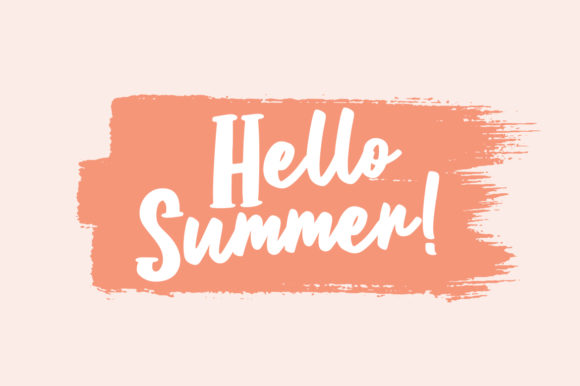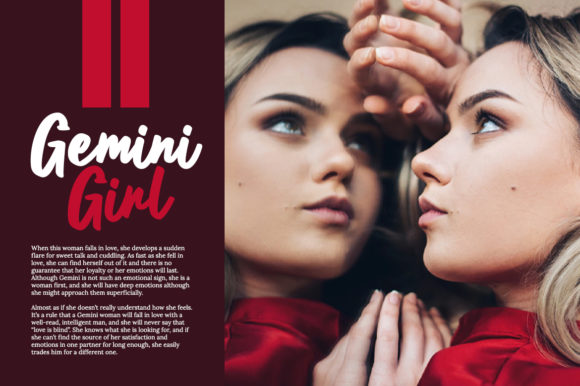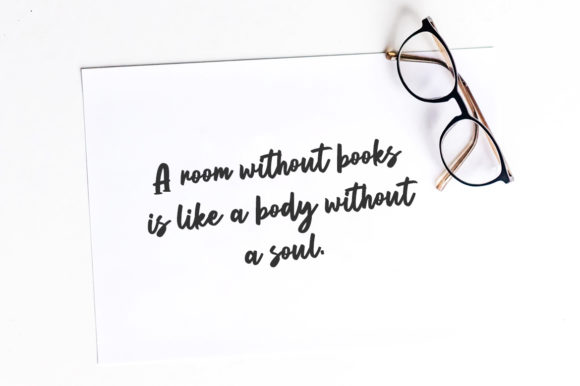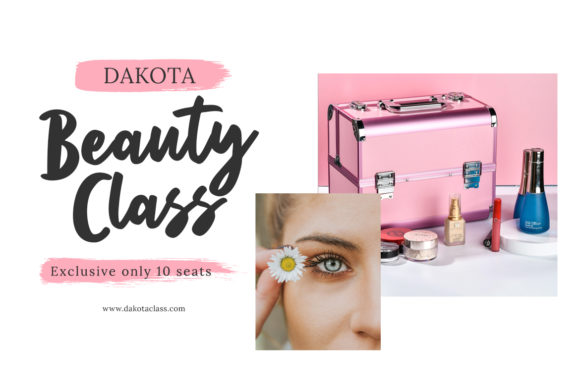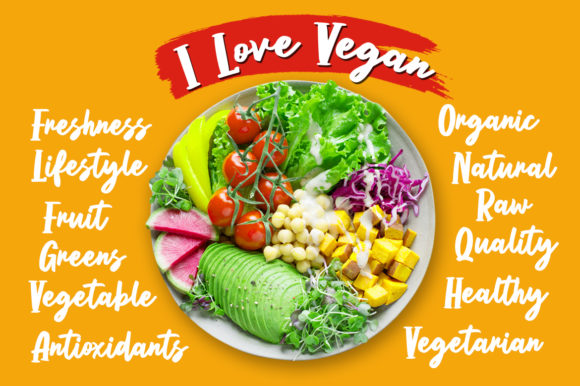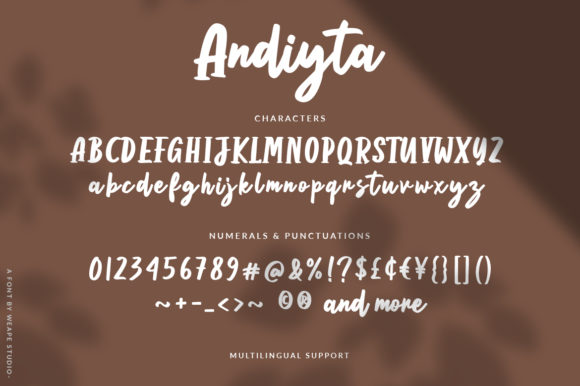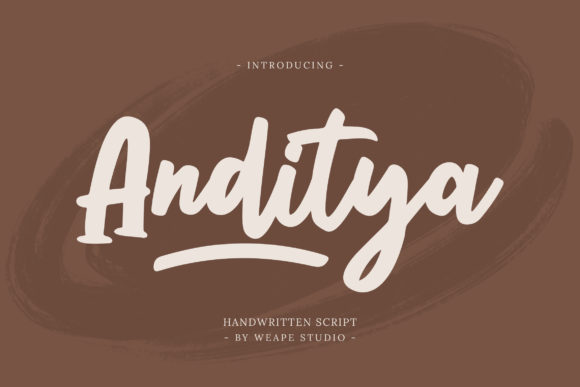
Introducing Anditya Font: The Perfect Handwritten Companion for Designers and Crafters
Are you on the hunt for a beautiful, versatile, and elegant handwritten font to elevate your design projects? Look no further than Anditya Font! This stunning typeface is perfect for a wide range of applications, from quotes and product packaging to fashion magazines, logos, photography, merchandise, branding projects, posters, social media posts, book covers, flyers, and more.
The Beauty of Anditya Font
Anditya Font is a meticulously crafted handwritten font that exudes elegance and sophistication. Its flowing lines, delicate curves, and subtle imperfections give it a personal and organic feel that’s sure to capture the attention of your audience. Whether you’re looking to add a touch of whimsy, romance, or luxury to your designs, Anditya Font is the perfect choice.
One of the best things about Anditya Font is its incredible versatility. Its unique character makes it suitable for a wide range of design projects, including:
- Quotes and Posters: Add a touch of elegance to your inspirational quotes and posters with Anditya Font.
- Product Packaging: Elevate your brand’s packaging with a beautiful, handwritten font that’s sure to stand out.
- Fashion Magazines: Give your fashion magazine a luxurious feel with Anditya Font’s elegant and sophisticated style.
- Logos and Branding: Create a lasting impression with a custom logo or branding project that showcases Anditya Font’s unique character.
- Photography: Add a touch of personality to your photography with Anditya Font’s beautiful, handwritten style.
- Merchandise: Create stunning merchandise, such as t-shirts, mugs, and tote bags, with Anditya Font’s eye-catching design.
- Social Media Posts: Stand out on social media with Anditya Font’s elegant and sophisticated style.
- Book Covers: Give your book a professional and polished look with Anditya Font’s beautiful, handwritten style.
- Flyers and Brochures: Create eye-catching flyers and brochures that showcase your brand’s personality with Anditya Font.
Why Choose Anditya Font?
So, why should you choose Anditya Font for your design projects? Here are just a few reasons:
- Unique and Elegant: Anditya Font is a one-of-a-kind handwritten font that’s sure to elevate your designs.
- Versatile: Anditya Font is suitable for a wide range of design projects, from quotes and posters to logos and branding.
- Easy to Read: Anditya Font is clear, legible, and easy to read, making it perfect for body text and headlines.
- High-Quality: Anditya Font is a high-quality font that’s designed to deliver exceptional results.
Tips for Using Anditya Font
To get the most out of Anditya Font, here are a few tips to keep in mind:
- Use it sparingly: Anditya Font is a beautiful font, but it can be overwhelming if used excessively. Use it sparingly to add emphasis and create visual interest.
- Pair it with other fonts: Anditya Font pairs well with other fonts, such as sans-serif fonts like Arial or Helvetica. Experiment with different pairings to find the perfect combination.
- Adjust the size and color: Anditya Font looks great in a variety of sizes and colors. Experiment with different sizes and colors to find the perfect fit for your design.
| Font Name | Anditya Font |
| Author | Weape Design |
Anditya Font is a beautiful, versatile, and elegant handwritten font that’s perfect for designers and crafters. Its unique character, flowing lines, and delicate curves make it suitable for a wide range of design projects, from quotes and posters to logos and branding. With its high-quality design, ease of use, and endless design possibilities, Anditya Font is a must-have font for any designer or crafter looking to elevate their designs.